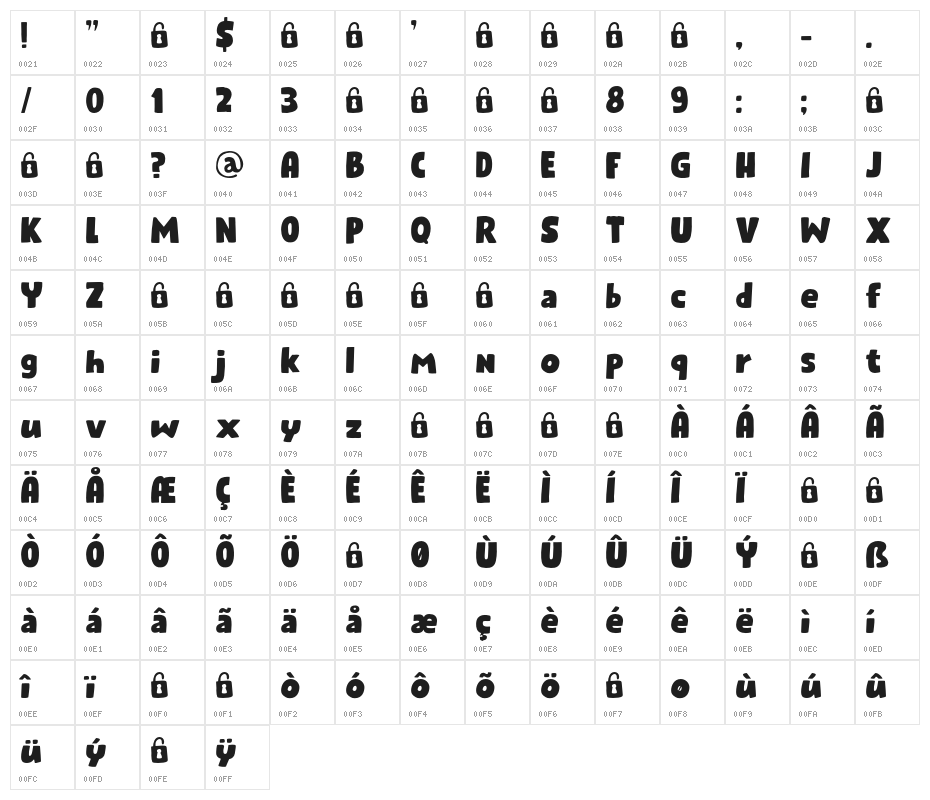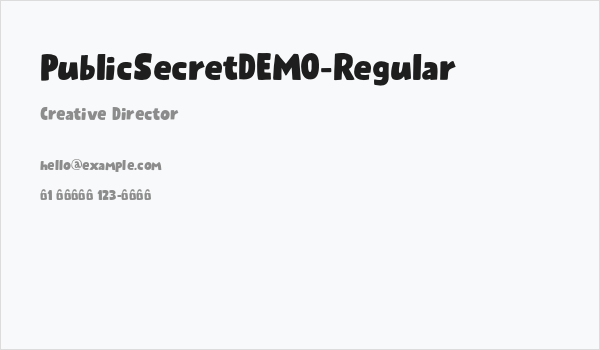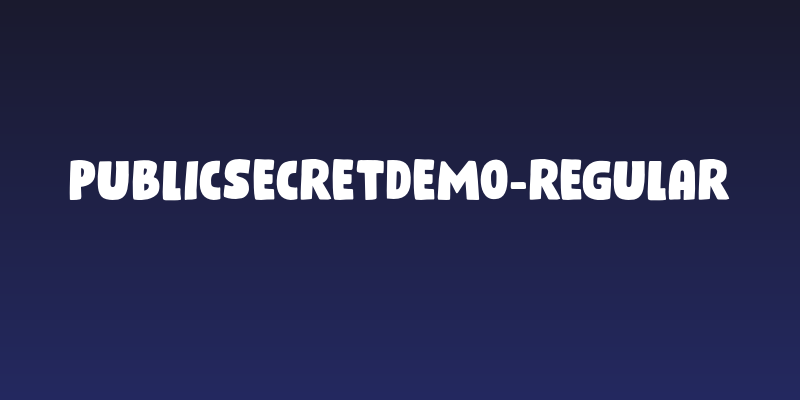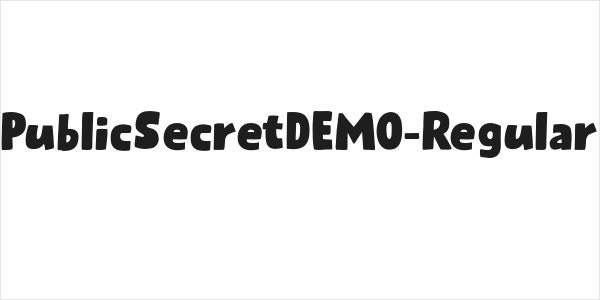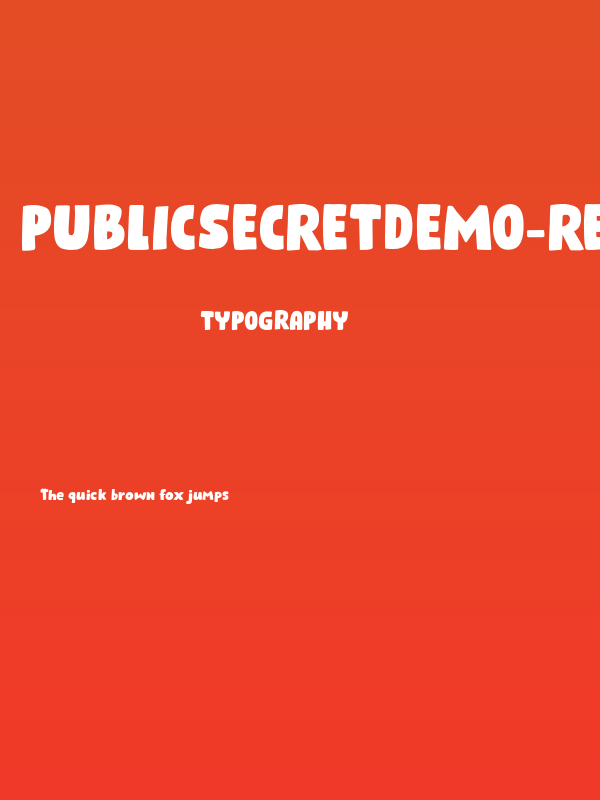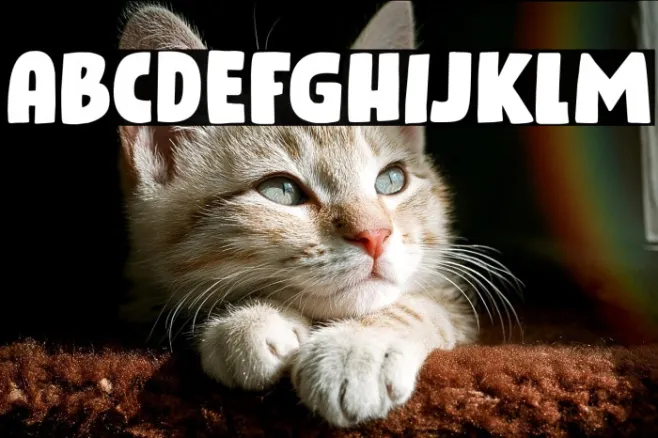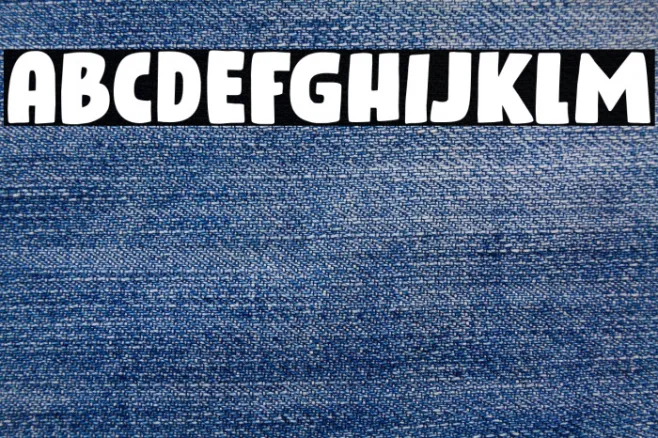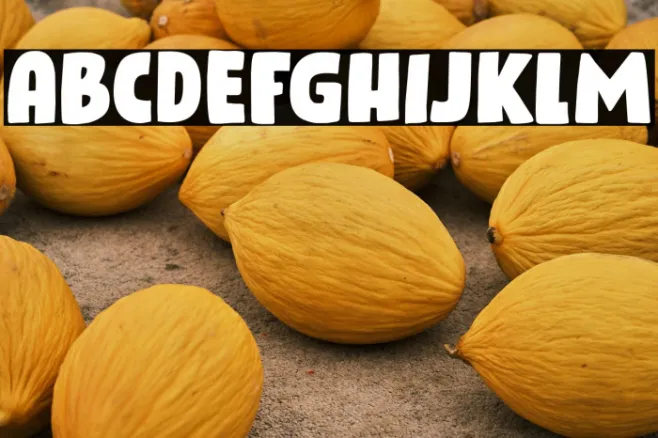
PublicSecretDEMO-Regular Font
PublicSecretDEMO-Regular Description
This playful and bold font features thick, rounded characters that convey a sense of fun and creativity. The uppercase and lowercase letters maintain a consistent weight, with a slightly exaggerated width that adds to its whimsical appearance. The numbers and special characters are equally bold, with unique lock symbols replacing some numerals, adding a quirky touch. The font's overall style is informal and friendly, making it suitable for projects that aim to capture attention with a lighthearted tone.
| Proposed Projects | Ideal for children's books, playful branding, posters, and creative advertising campaigns. |